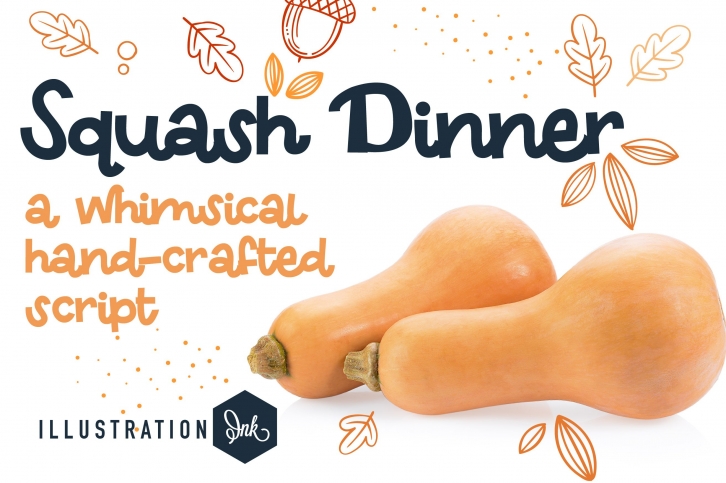
ZP Squash Dinner is a trendy and unique font with an authentic style. It was designed by Illustration Ink and it's a great choice for creative people who need such a font. It was released on November 17, 2022 and the file size is 15.93 MB. ZP Squash Dinner will add an organic vibe to any design idea!